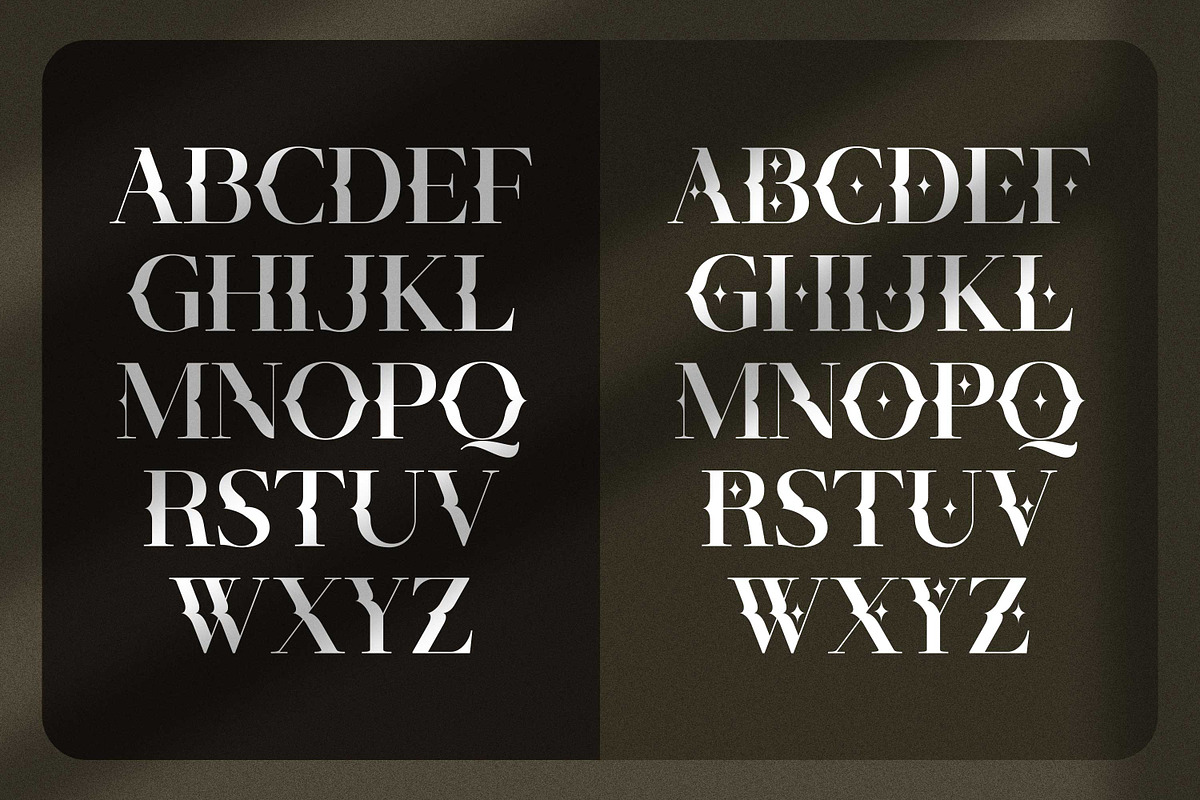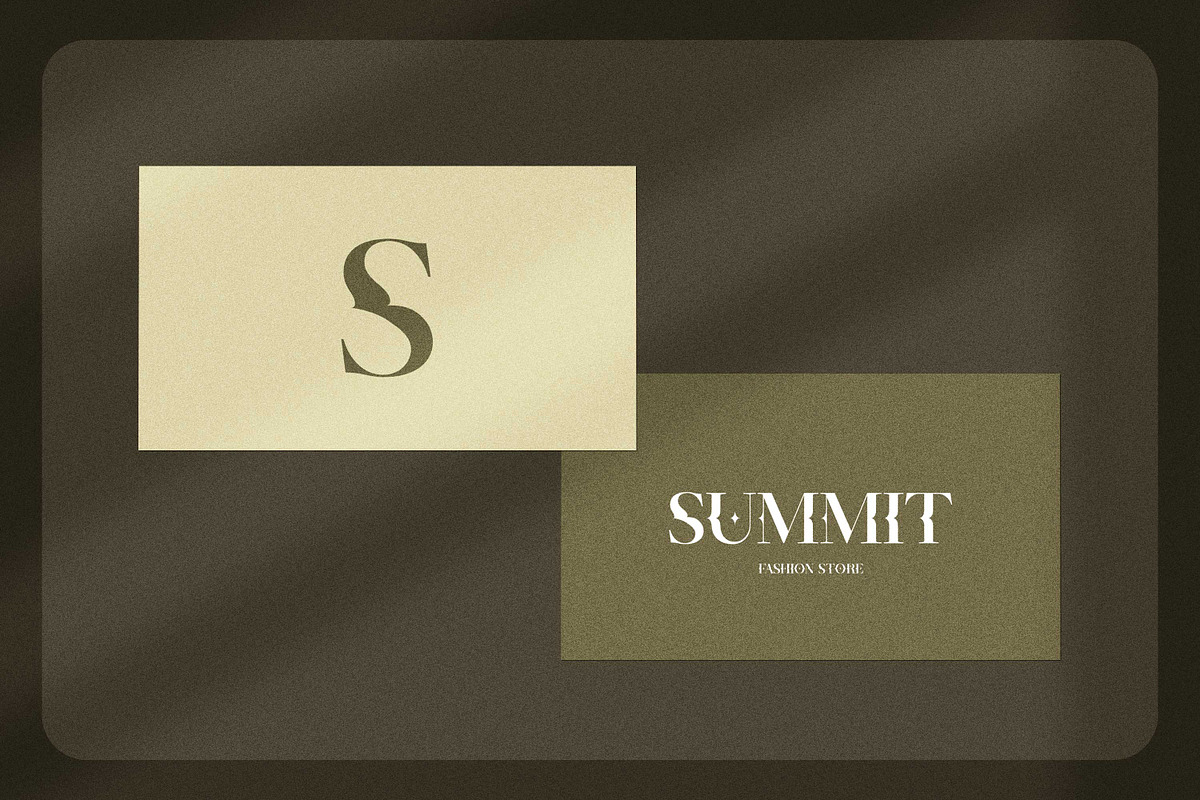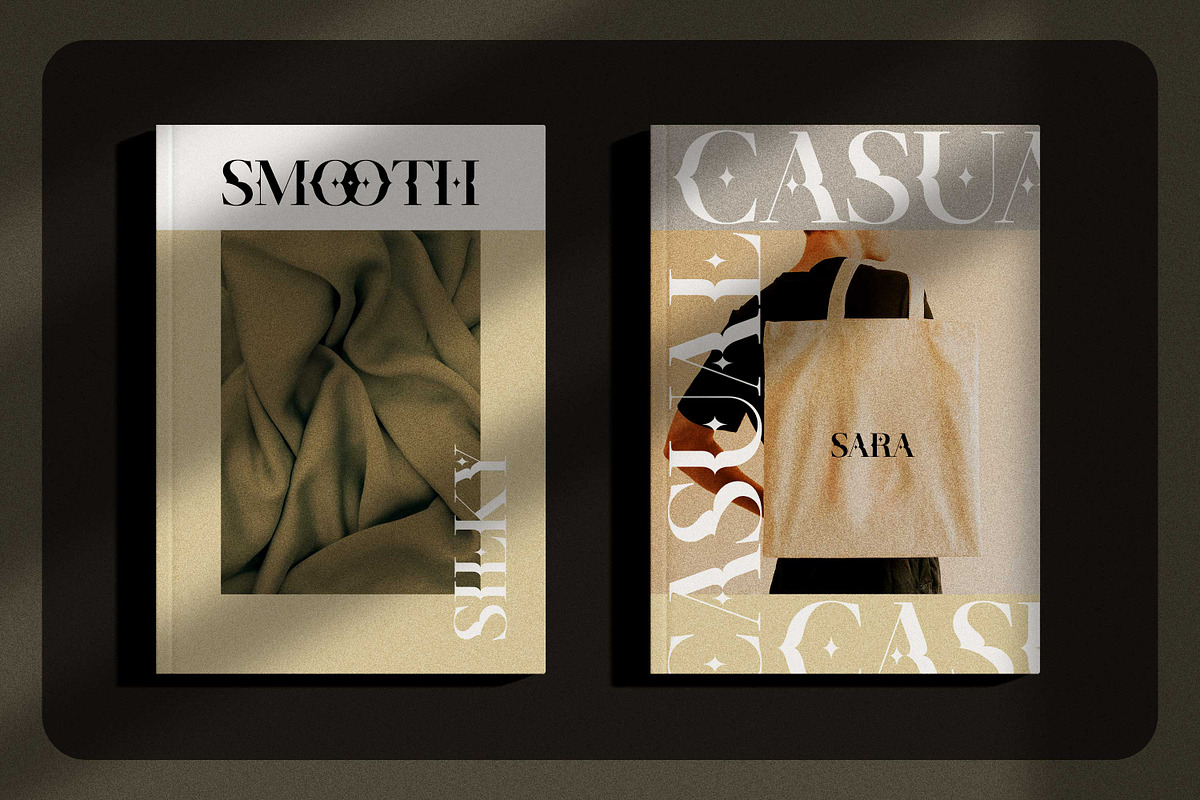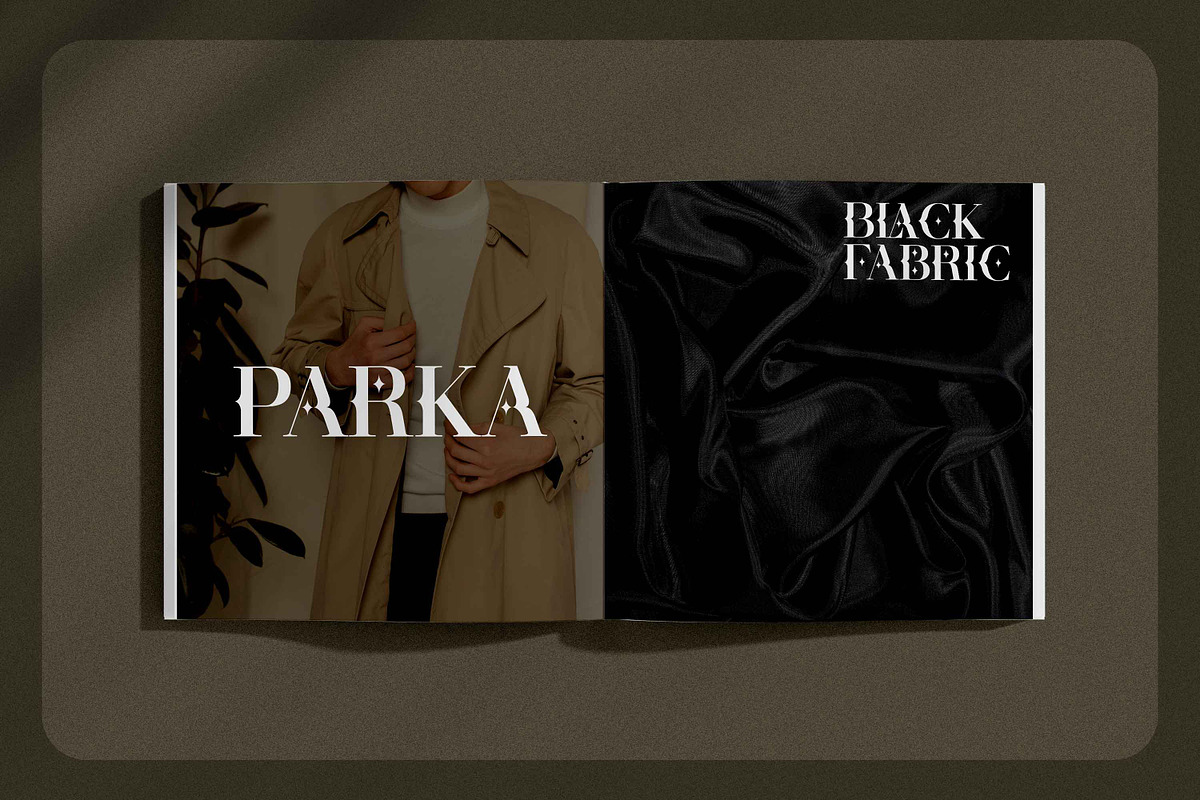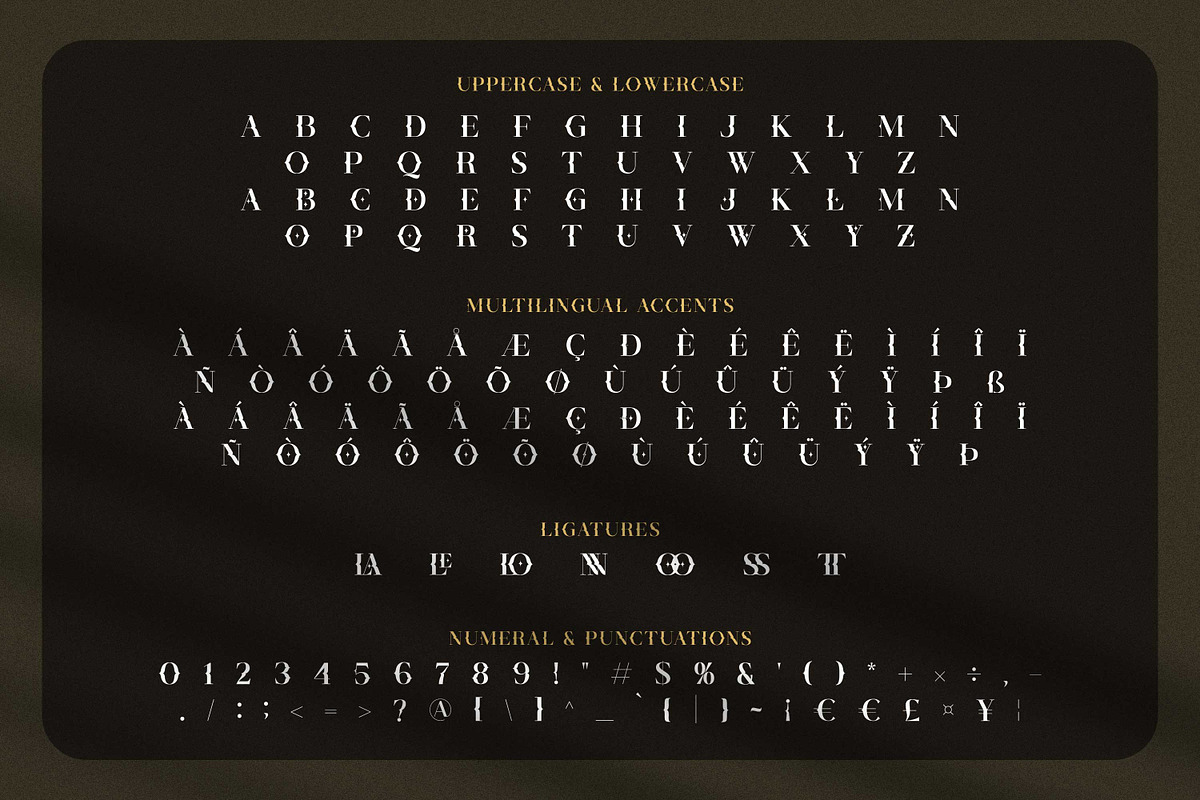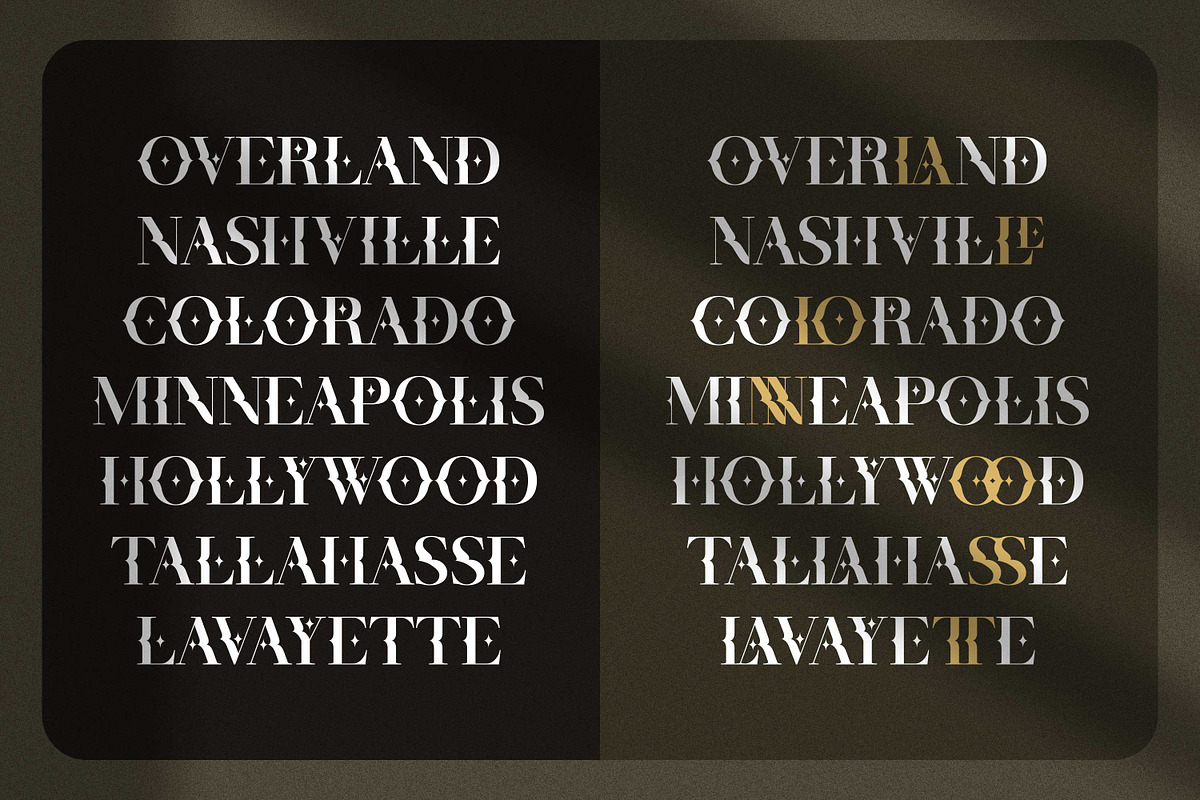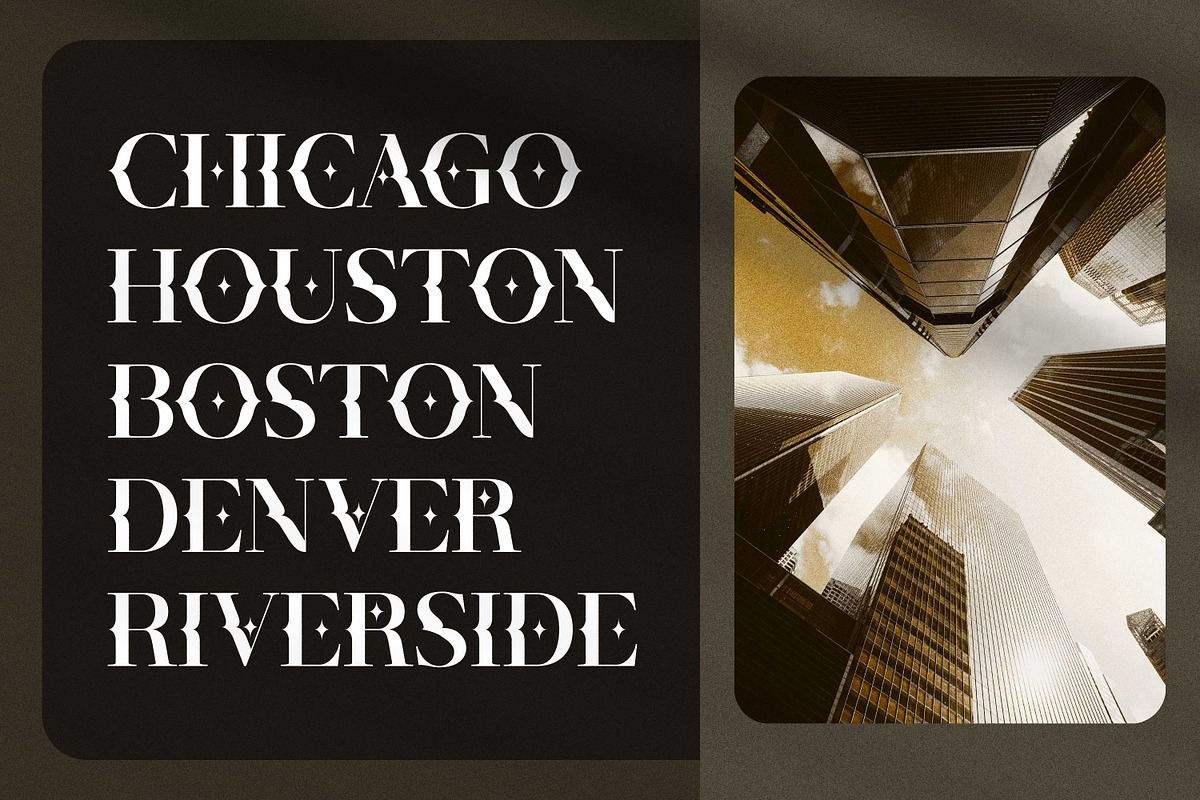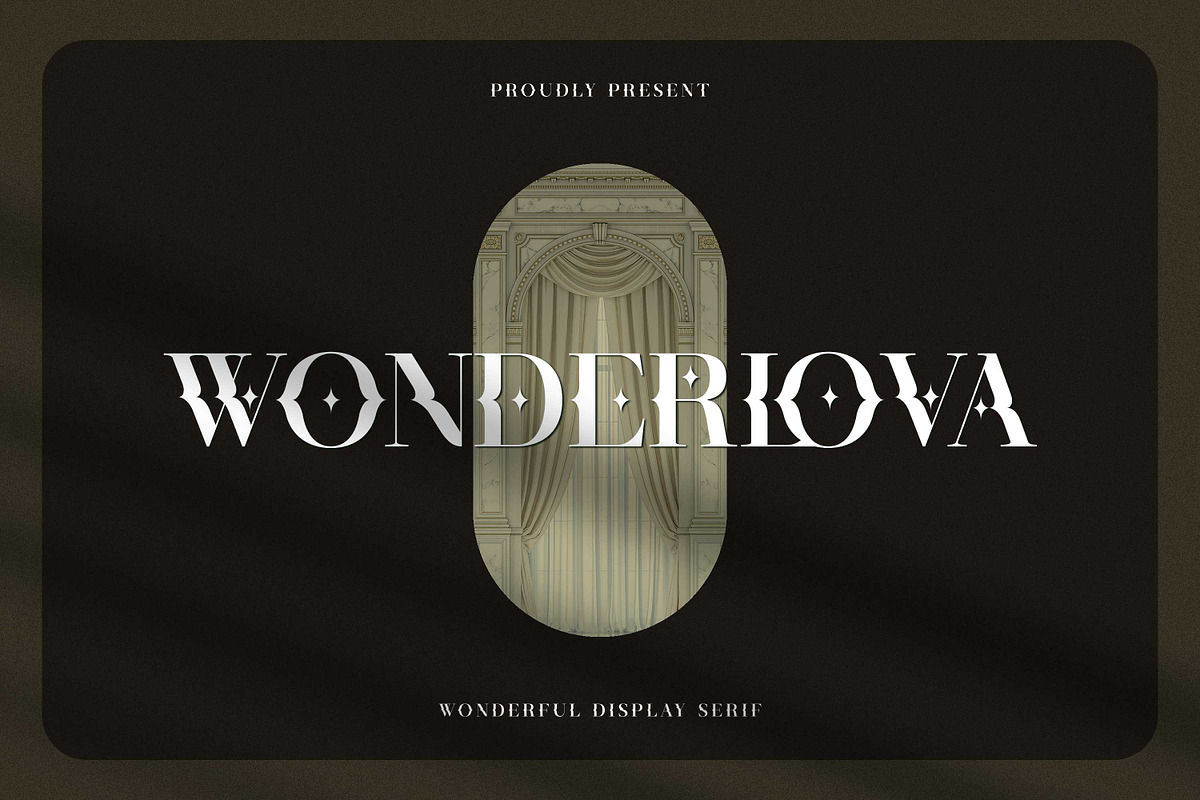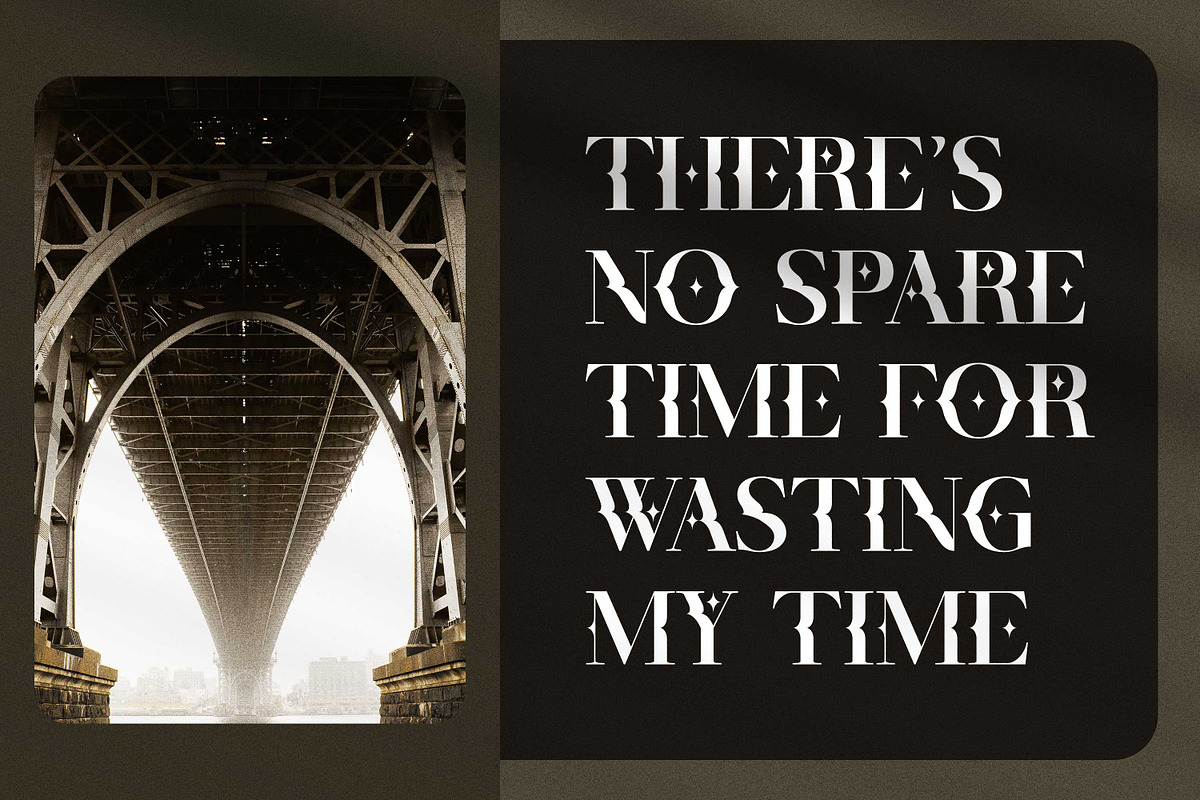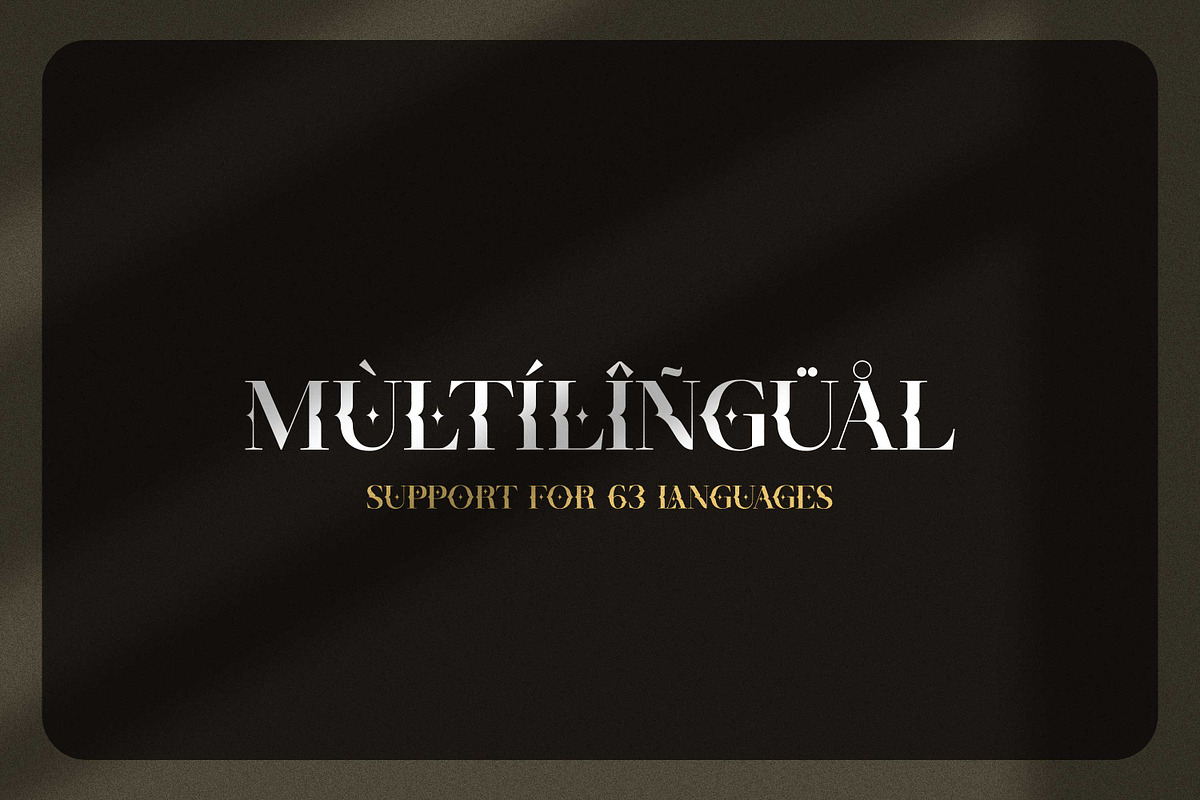
Wonderlova - Wonderful Display Serif
Hello, Introducing, Wonderlova - Wonderful Display Serif is an elegant, unique font that uses Ligatures to smoothly link letters. inspired by the famous minimalist logo, perfect for the purposes of designing templates, brochures, videos, advertising branding, logos, and more. Perfect for adding a unique twist to word-mark logos, monograms or pull quotes. What's Included :